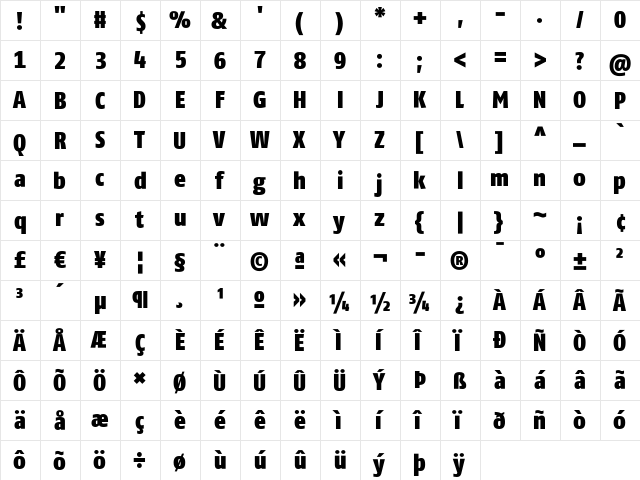
FagoCoTf-Black Bold Font Preview
FagoCoTf-Black Bold
Design Context for FagoCoTf-Black Typeface
FagoCoTf-Black offers clean, dependable letterforms without strong stylistic allegiance, making it a practical choice for designers who need flexibility. Its bold stroke weight gives it real presence on the page.